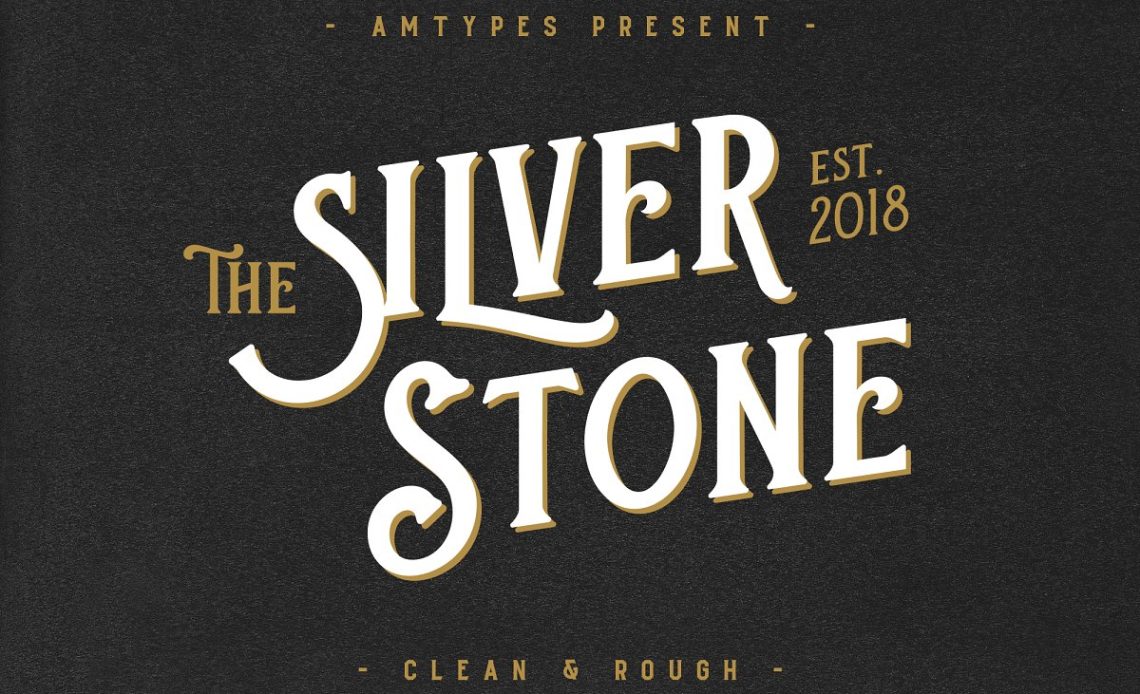
Introducing Silver Stone Font + Bonus, the ultimate vintage display font that will transport you back in time! Created by the talented Angga Mahardika, this font is inspired by vintage packaging, book covers, and tins, making it the perfect choice for all your vintage design needs.
With its elegant serif style, Silver Stone Font + Bonus is guaranteed to elevate your projects to a whole new level. Whether you're designing a logo, branding, or product packaging, this font will add a touch of nostalgia and sophistication.
The features of Silver Stone Font + Bonus are truly impressive. It offers standard uppercase and lowercase letters, with special uppercase letters that add a unique flair to your text. You'll also find numbers, punctuation marks, stylistic alternates, ligatures, and accented characters. This font is a complete package that caters to all your typographic needs.